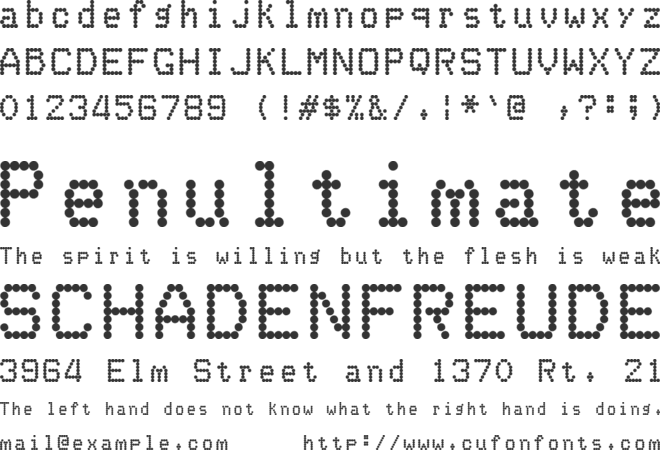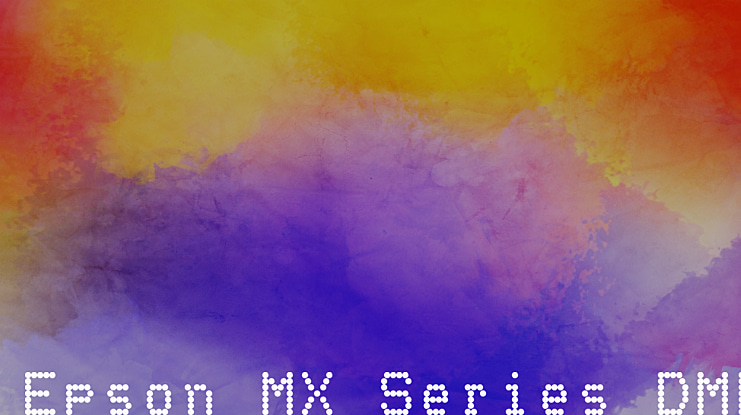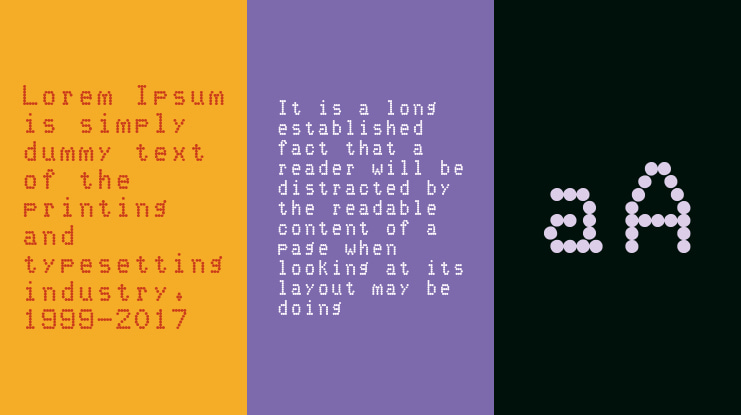
Epson MX Series DMP Font
One of the best selling dot matrix printers from the 1980s, the MX Series of printers from Epson were also used by many magazines of the era to print out their program listings. This is an exact reproduction of the output from the MX Series printers. It does not include the italic version of the typeface. The extra files are the web versions (.woff and .woff2) of the typeface. Includes most of the accented characters of non-English, Latin-based languages.